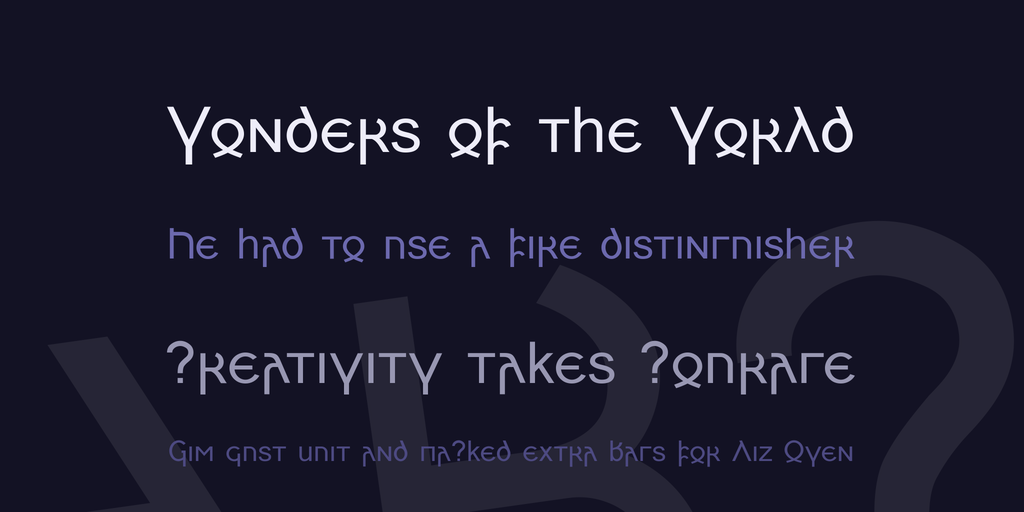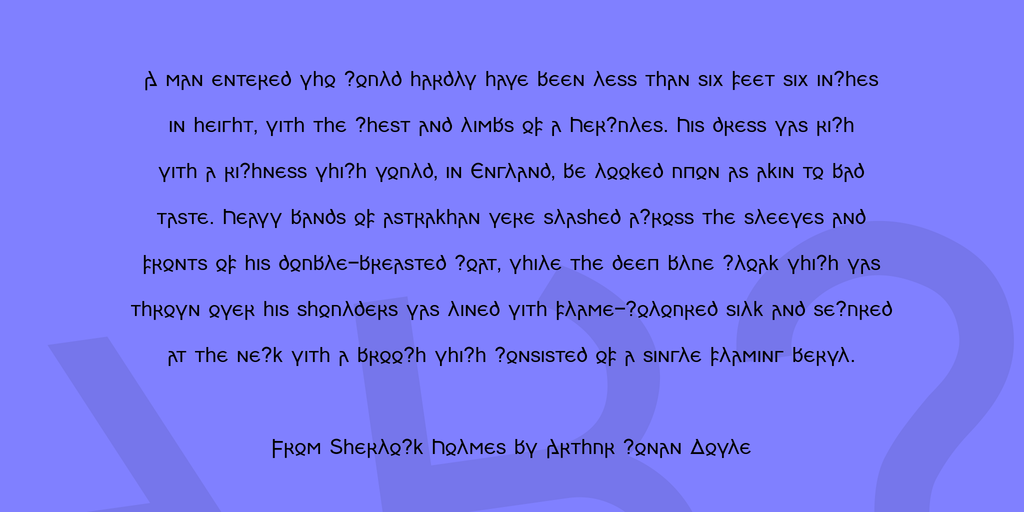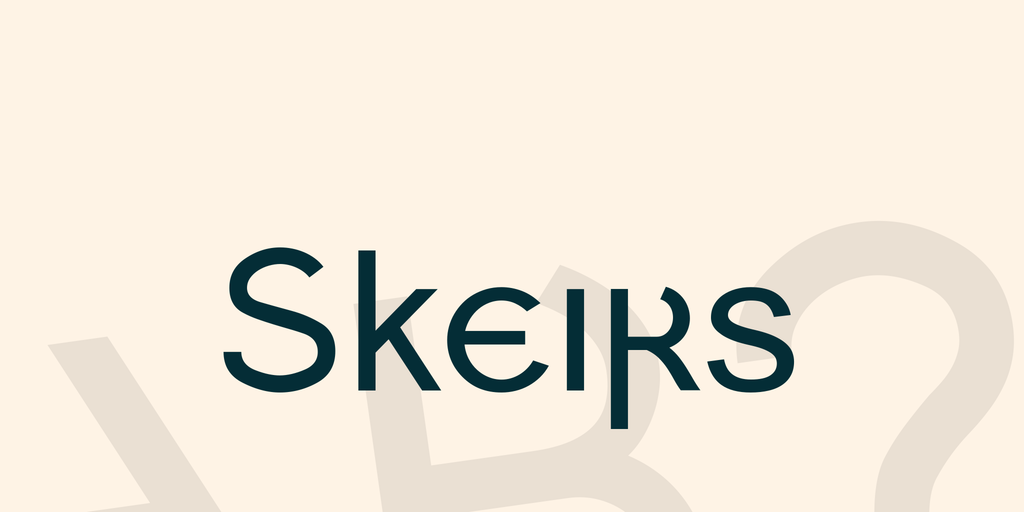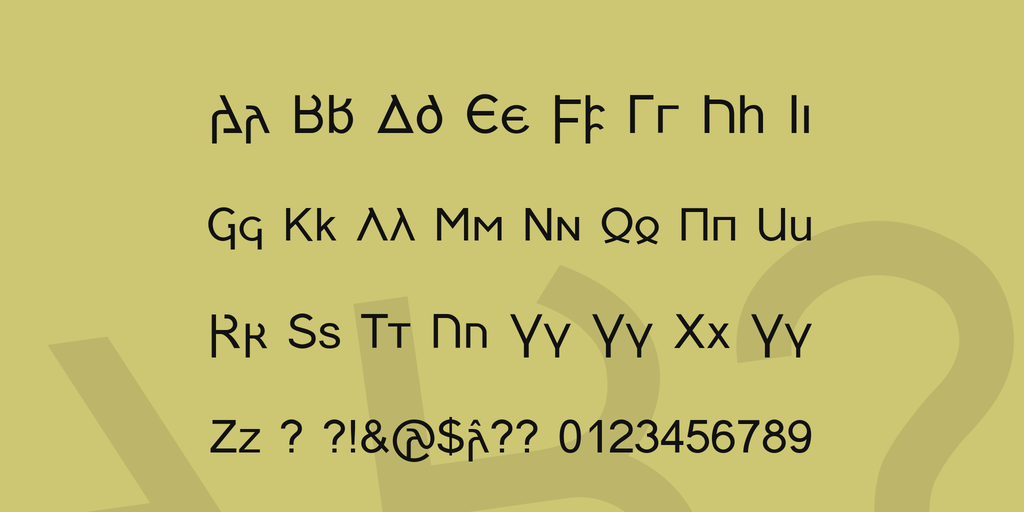
Skeirs Font
Skeirs (Goth. “clear”) is an Arial-like sans serif font especially suited for screen display. As the Gothic Unicode range doesn’t allow space for both upper- and lowercase letters, I’ve placed the uppercase letters into the private use area. When using the Gothic keyboard layouts offered here as well, they can be accessed as usual by pressing shift.
In historic Gothic there were only capital Letters. This font’s minuscules have been derived from those majuscules. Doing so wasn’t particularly difficult as the Codex Argenteus’ uncial script already shows attempts of ascenders and descenders. Further aid was given to me by the relation between Latin upper- and lowercase letters. Developing those minuscules appeared necessary in order to achieve a well tempered appearance of texts containing both Latin and Gothic script.
Skeirs contains 228 characters and an attached system of OpenType rules, by which letters at the beginning of a sentence are rendered capital, as far as the programme used supports the so called OpenType-Features. In this case, also “I” and “ı” at a word’s beginning are substituted by “Ï” and “ï” automatically. When using the Gothic keyboard layout offered on my site, the majuscules can as well be manually typed by holding shift.
Additionally, Skeirs includes a complete set of Germanic runes.